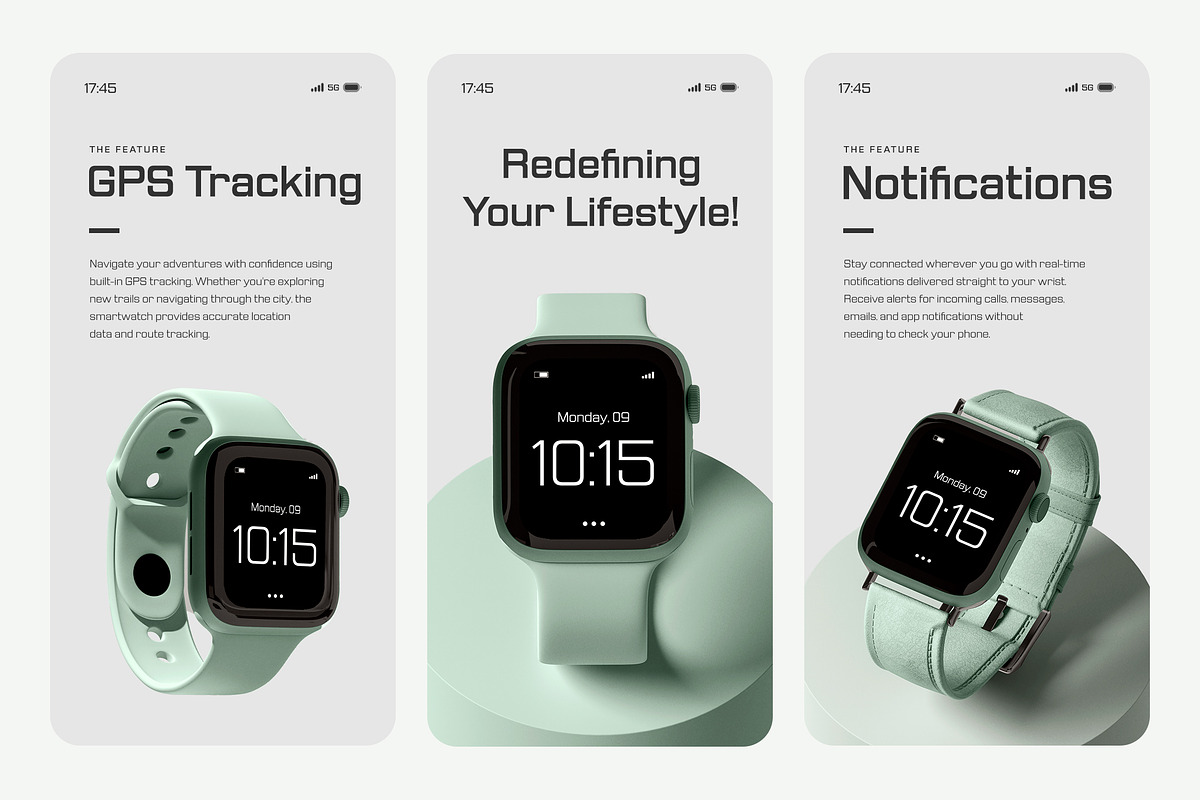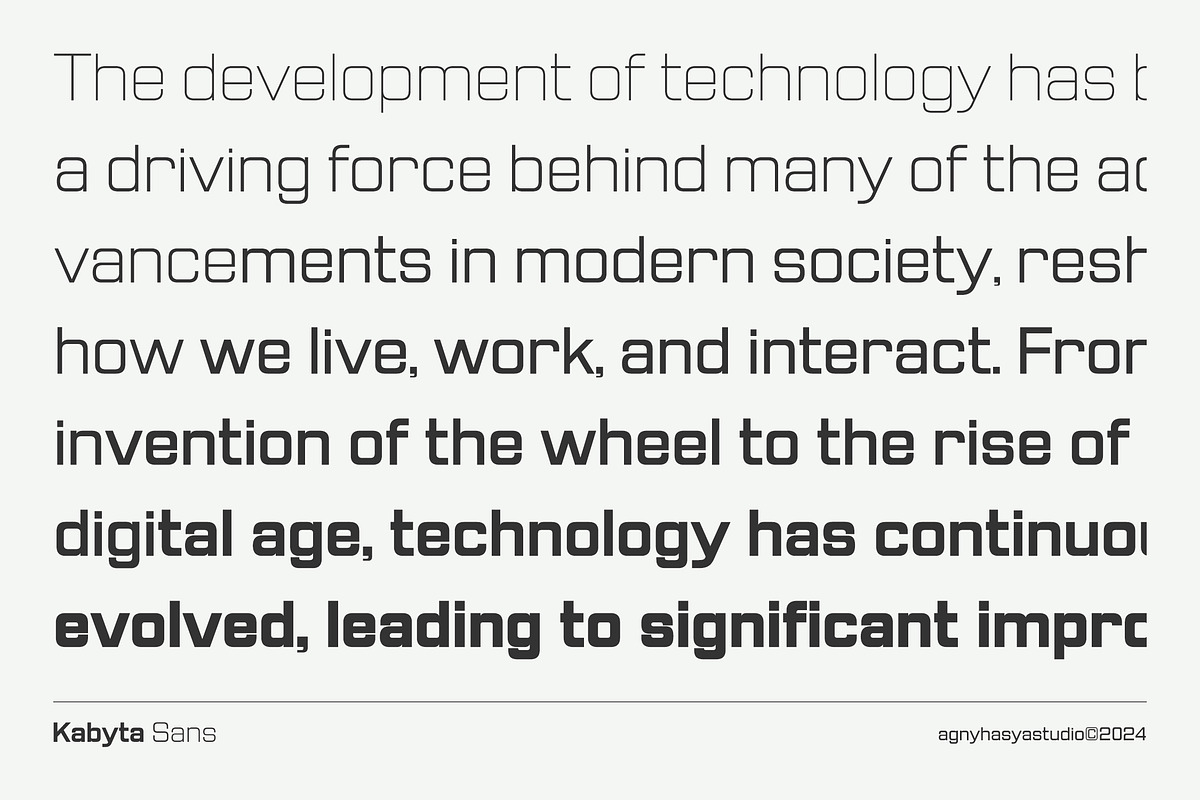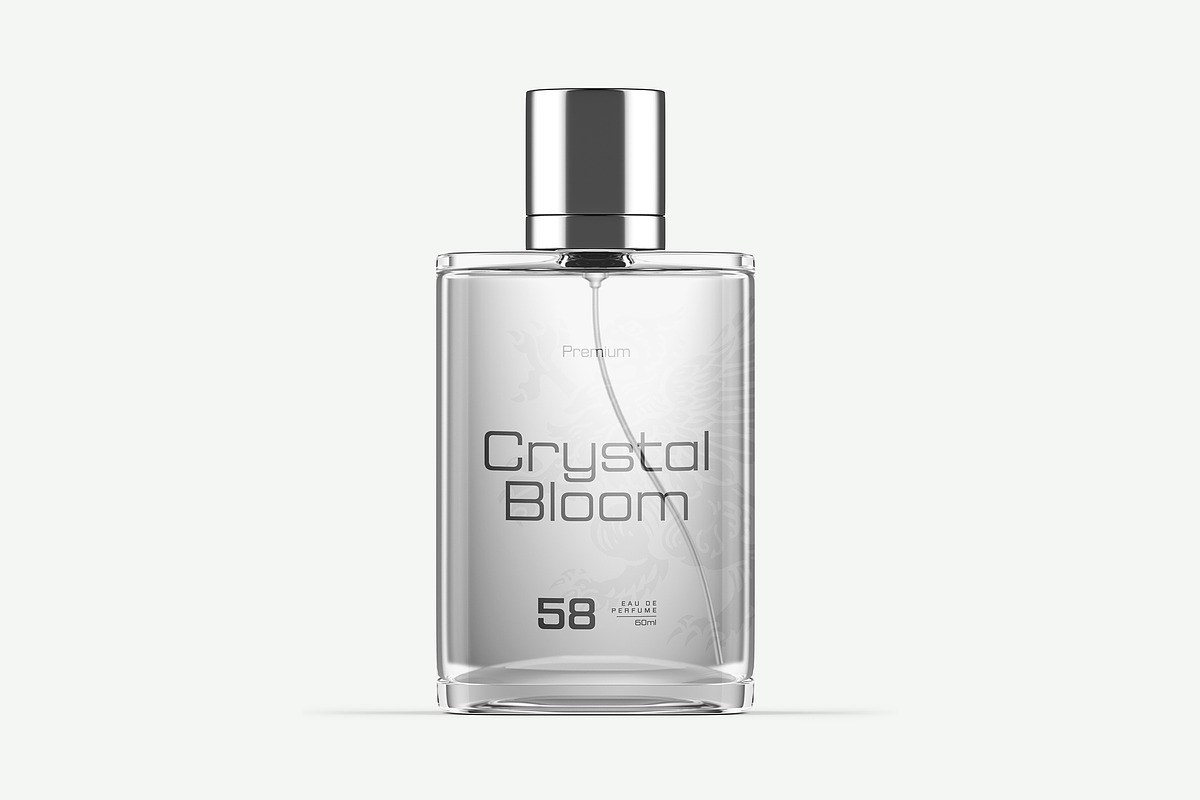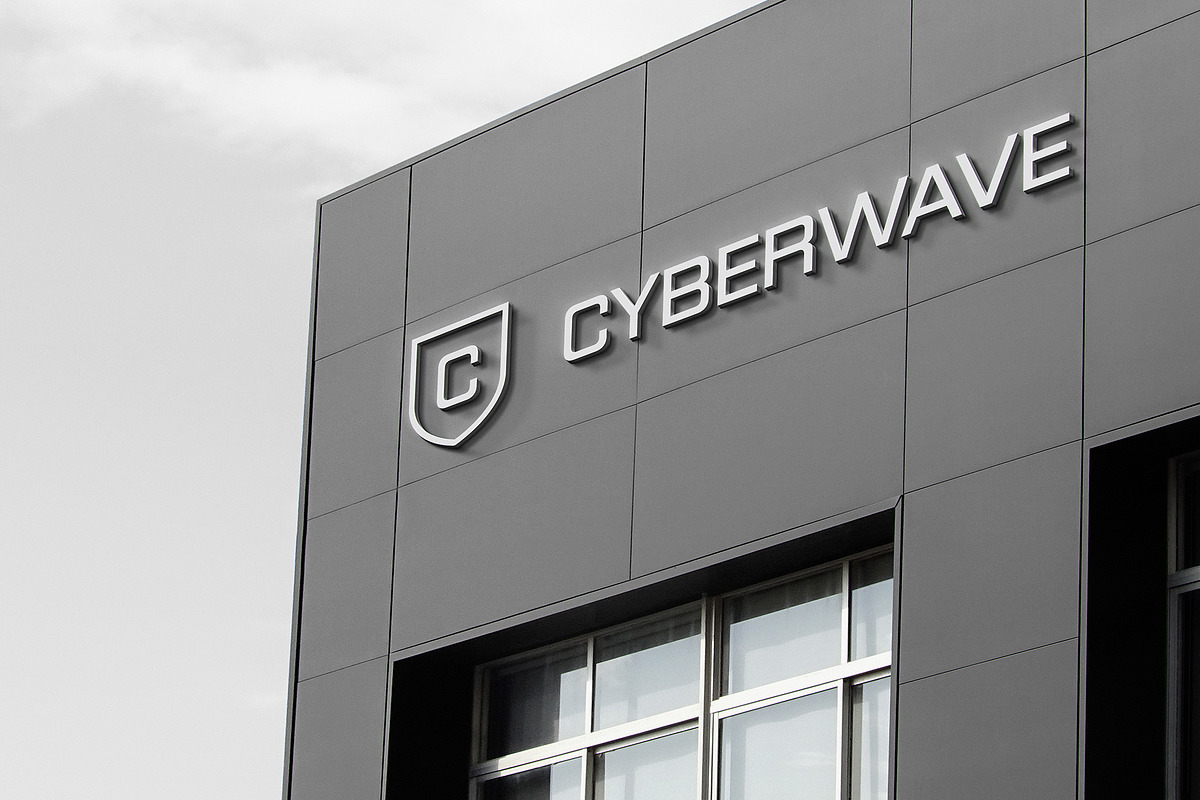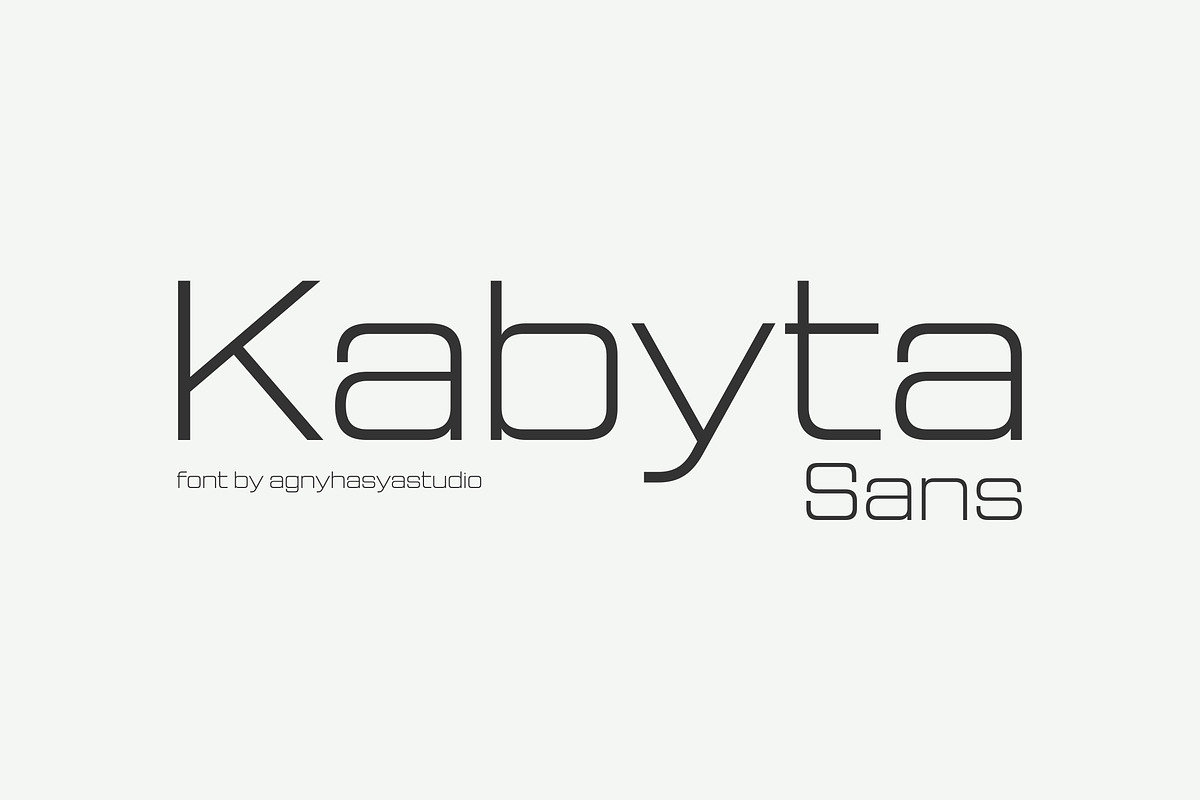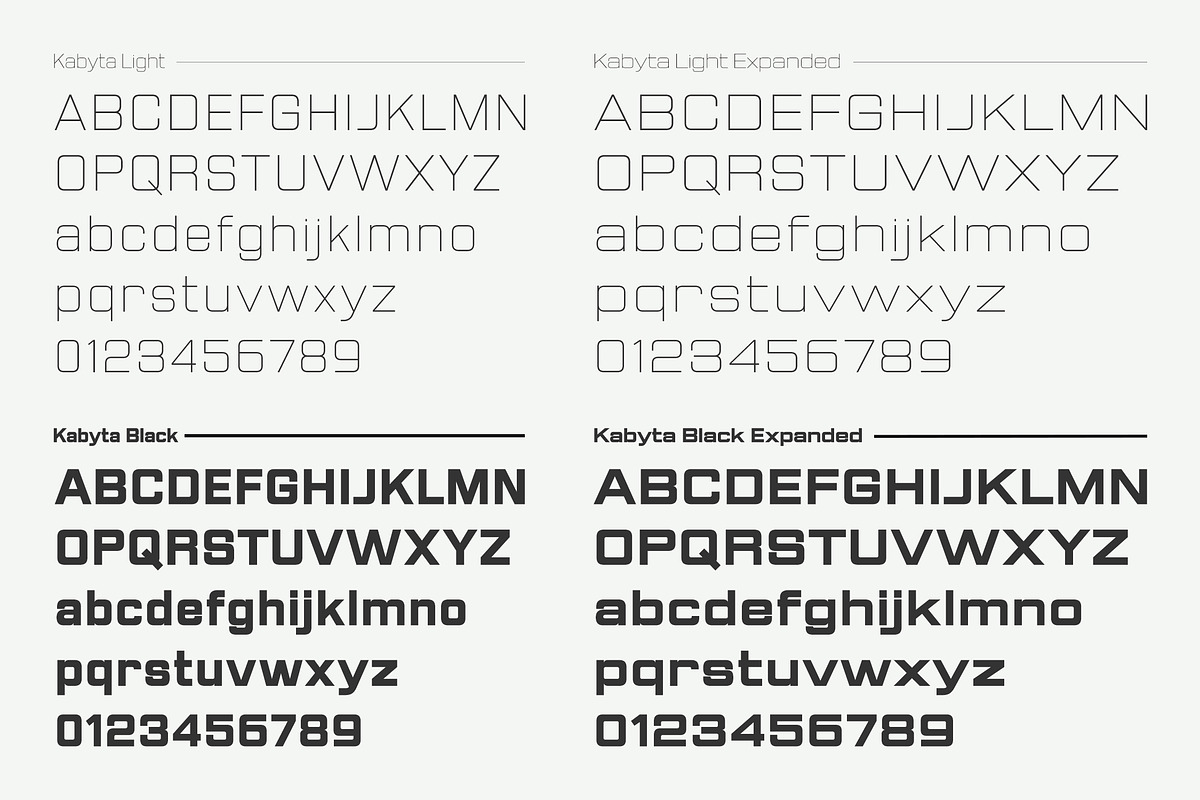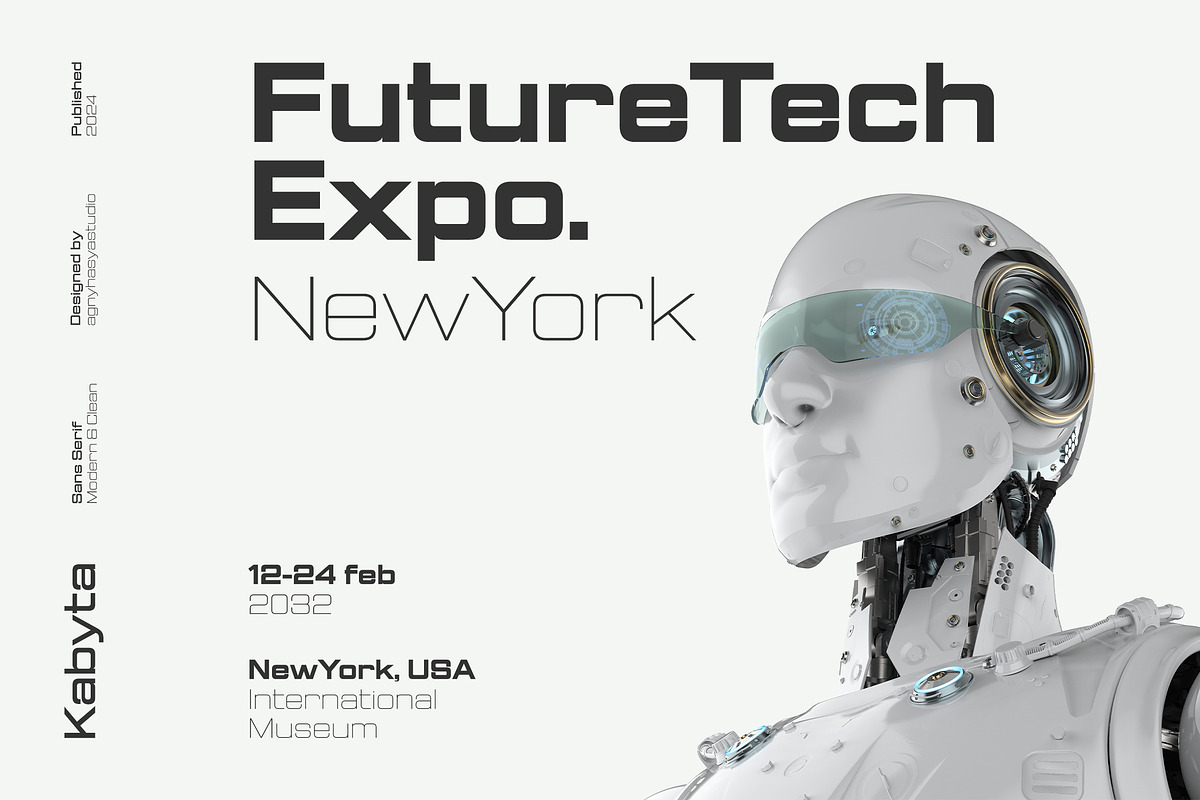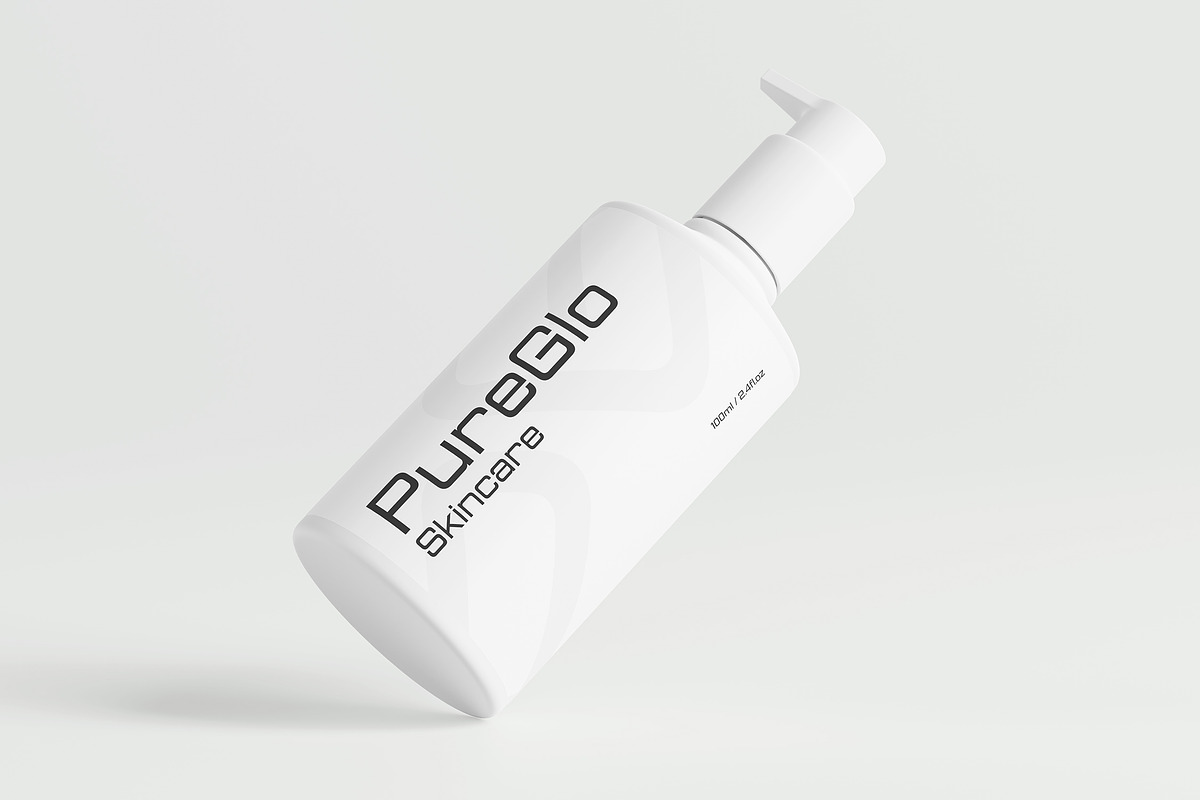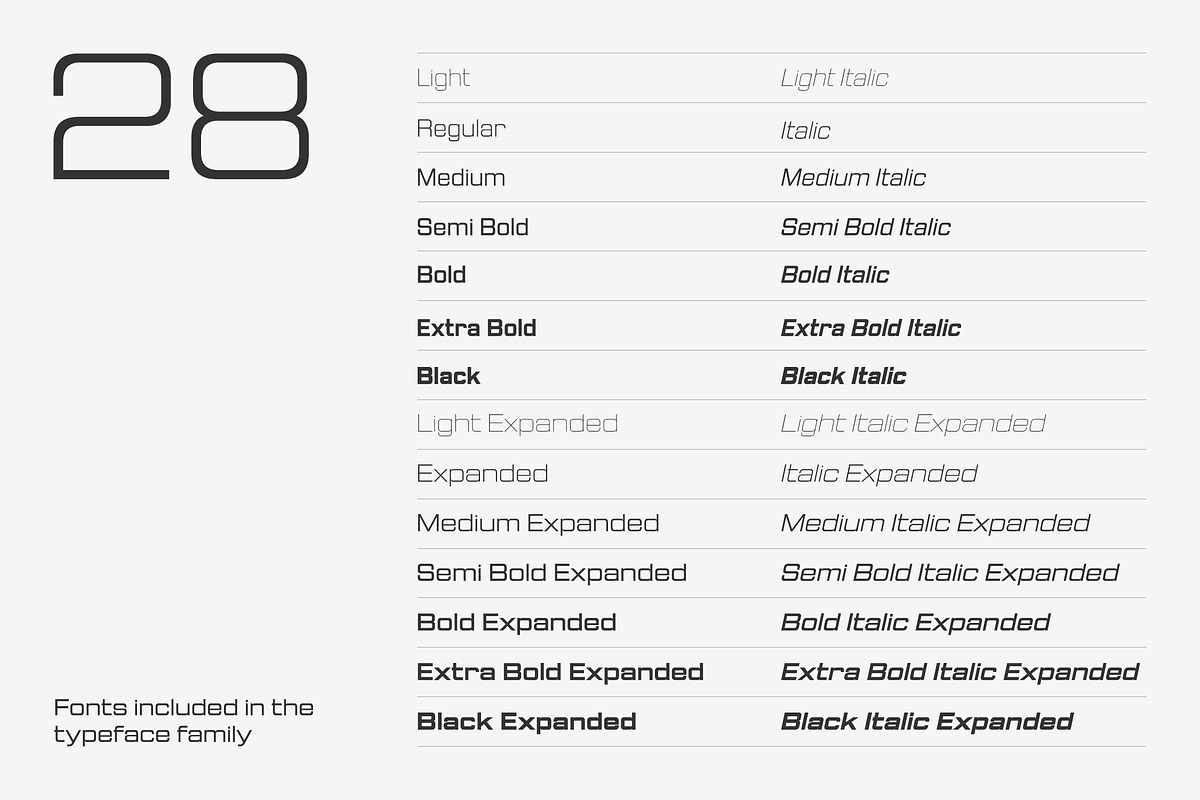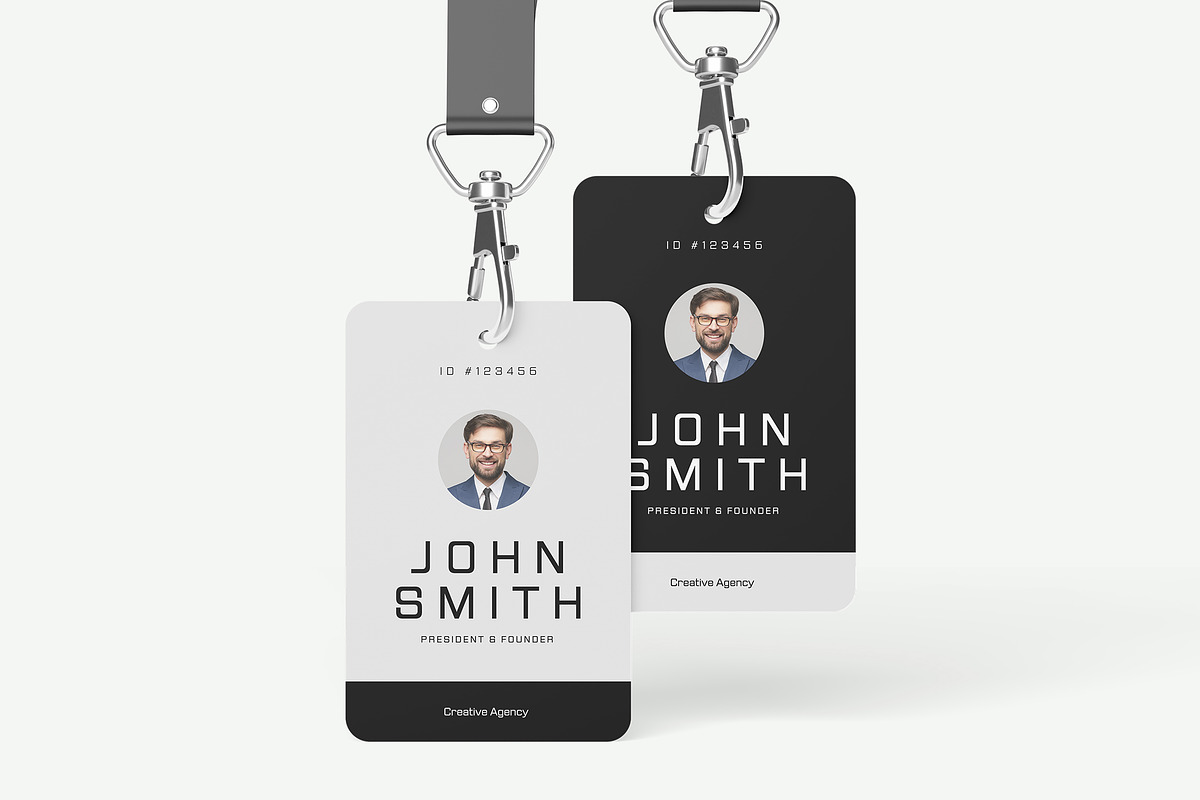
kabyta Sans
Kabyta is a Sans serif typeface family, characterized by a modern, clean, simple aesthetic yet minimalist and professional look. It features uppercase and lowercase letters, numerals, punctuation, and OpenType features. It also supports multilingual characters, making it perfect for use in various languages.
Kabyta is available in 28 font styles, which include seven upright weights (Light, Regular, Medium, Semi-Bold, Bold, Extra Bold, and Black) as well as italics and expanded style equivalents for all seven weights. When you download the package, you will receive desktop fonts in OTF and TTF formats and web fonts in WOFF and WOFF2 formats.
Suitable for various design projects such as Web Design, UI Design, Logos, Business Branding, Marketing graphics, banners, posters, Advertising, Stationery, Corporate identities, Titles, Paragraphs, Digital displays, Esports, Sports, Games, Futuristic Technology concepts, and more.